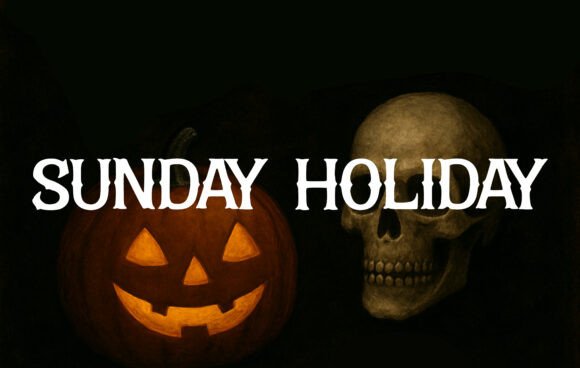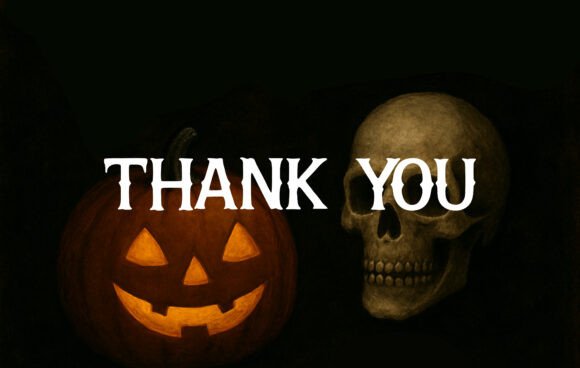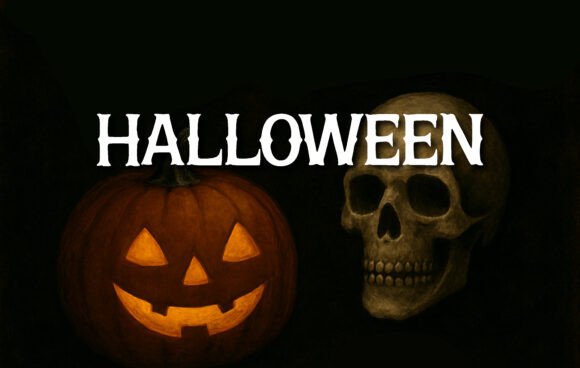
Unleash the Spook: Elevate Your Halloween Designs with a Hauntingly Elegant Font
As the witching hour approaches, designers and crafters are on the lookout for the perfect typography to add a spine-chilling touch to their Halloween creations. Look no further than the Halloween font, a hauntingly elegant serif typeface that conjures the spirit of classic horror with a refined twist. In this article, we’ll dive into the characteristics that make this font a standout choice for your seasonal designs and explore how it can elevate your spooky invitations, eerie signage, and themed packaging.
The Essence of Halloween Font
Halloween font is a masterful blend of gothic sophistication and vintage flair, making it the perfect addition to any design that requires a touch of mystery, folklore, and the supernatural. Its tall, sharp-edged letterforms and dramatic flaring evoke the grandeur of classic horror, while its refined features prevent it from feeling too over-the-top or kitschy.
With its roots in traditional serif typography, Halloween font boasts a sense of timelessness that allows it to seamlessly integrate into a wide range of designs. Whether you’re creating spooky stationery, haunted house signage, or eerie packaging, this font delivers a creepy touch that’s sure to send shivers down the spines of your audience.
Vintage Flair and Gothic Sophistication
One of the standout features of Halloween font is its vintage flair, reminiscent of old spellbooks, cult film titles, and eerie storybooks. This nostalgic quality adds a layer of depth and history to your designs, making them feel more authentic and immersive. The font’s gothic sophistication, meanwhile, lends an air of mystery and otherworldliness, perfect for evoking the supernatural and the unknown.
Whether you’re a designer looking to create a cohesive brand identity for a haunted attraction or a crafter seeking to add a touch of personality to your Halloween-themed products, Halloween font is an excellent choice. Its versatility and eerie elegance make it suitable for a wide range of applications, from formal invitations to DIY decorations.
Perfect for Seasonal Designs
Halloween font is specifically designed to add a touch of spooky sophistication to your seasonal designs. Its unique blend of classic horror and refined features makes it perfect for:
- Spooky invitations and party decorations
- Eerie signage and haunted house attractions
- Themed packaging and product labels
- Halloween-themed stationery and crafts
With Halloween font, you can create designs that are both visually striking and atmospherically engaging. Whether you’re looking to create a sense of foreboding or simply add a touch of whimsy to your designs, this font is sure to deliver.
Tips for Using Halloween Font
To get the most out of Halloween font, here are a few tips to keep in mind:
- Use it sparingly: Halloween font is a statement piece, so use it judiciously to avoid overwhelming your design.
- Experiment with colors: While black and white are classic choices for Halloween designs, don’t be afraid to experiment with bold colors and gradients to add an extra layer of depth and atmosphere.
- Pair it with complementary fonts: Halloween font pairs well with simpler sans-serif fonts, which can help to create a sense of contrast and visual interest.
By incorporating Halloween font into your designs and experimenting with different styles and techniques, you can create truly unforgettable Halloween creations that will leave a lasting impression on your audience.
In conclusion, Halloween font is a hauntingly elegant serif typeface that’s perfect for adding a touch of spooky sophistication to your seasonal designs. With its vintage flair, gothic sophistication, and timelessly creepy charm, it’s an excellent choice for designers and crafters looking to create unforgettable Halloween creations. So why wait? Unleash the spook and elevate your Halloween designs with Halloween font today!